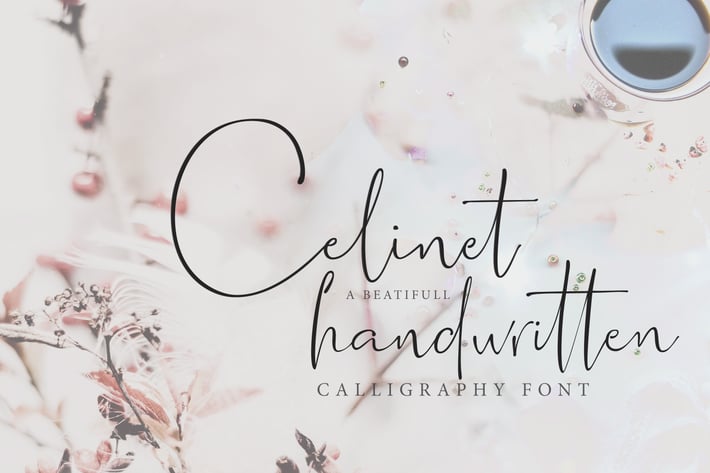
Celinet / Script Font
Celinetis a beautiful Calligraphy font suitable for Signature, Branding, Logos, Wedding invitations, or other romantic projects. To create real hand lettered effect, there were designed 85 ligatures.